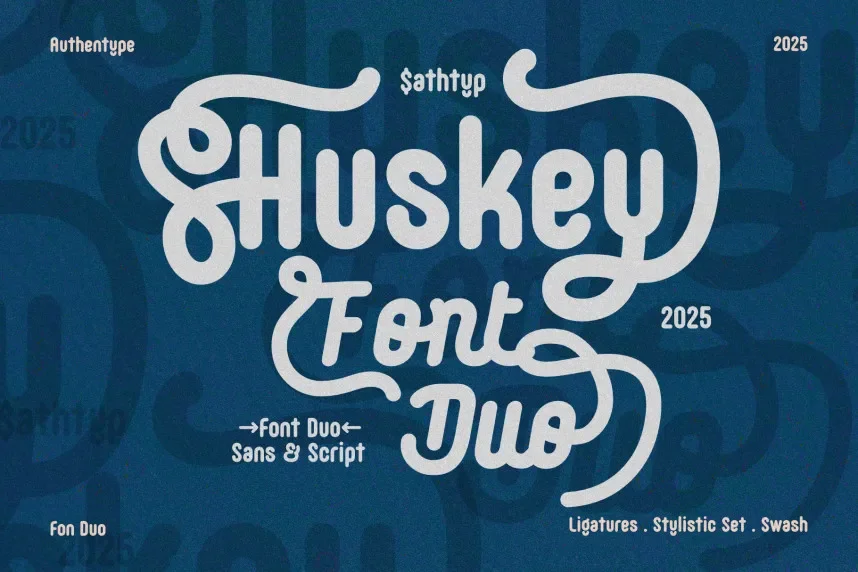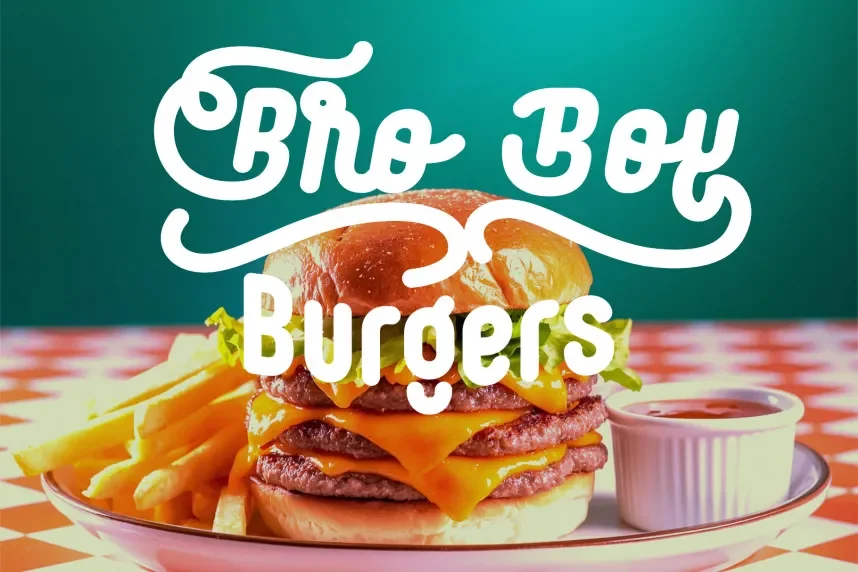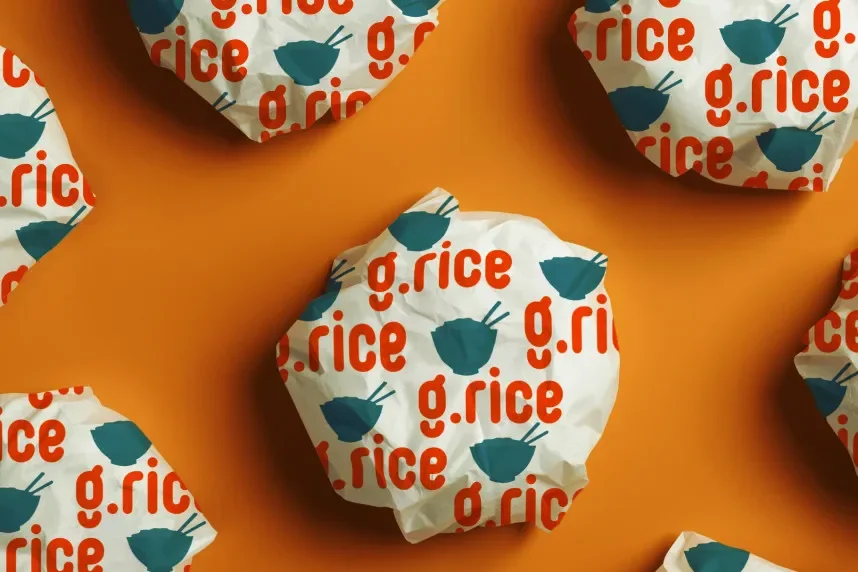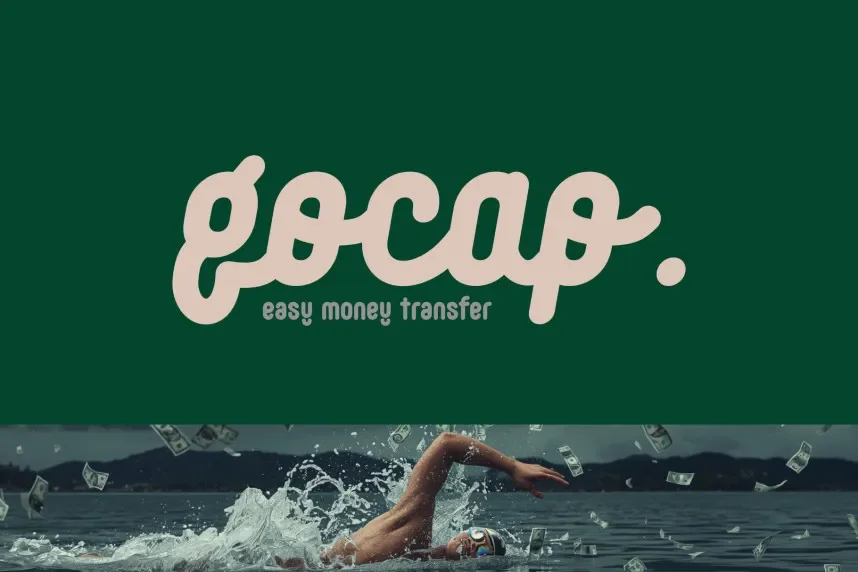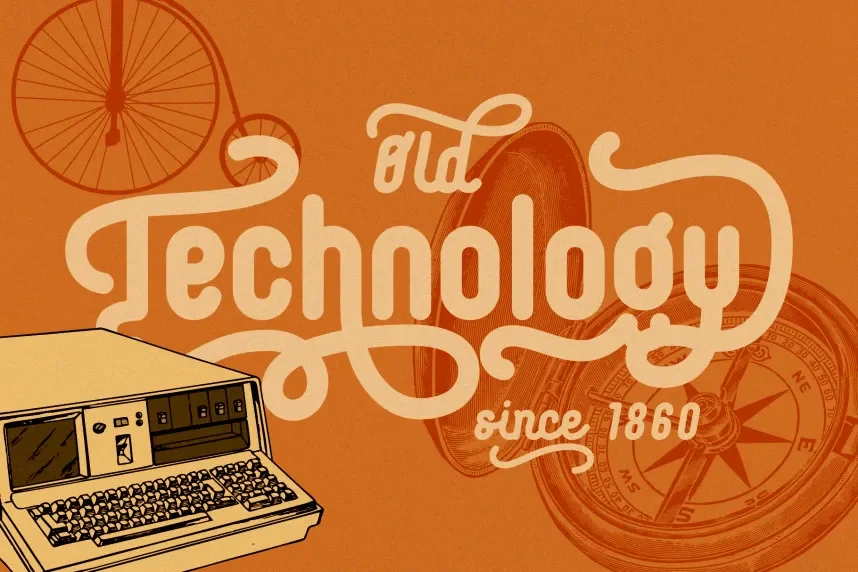
Huskey Font is a sans-serif display typeface designed to enhance clarity and professional appeal in branding, UI design, and marketing materials. Its structured forms maintain readability across multiple platforms.
The font features straight, bold lines, moderate letter spacing, and uniform stroke widths. Multiple weights and alternates provide versatility for headings, website banners, digital signage, and social media content.